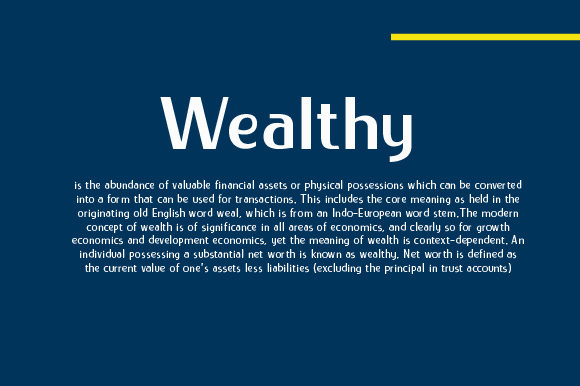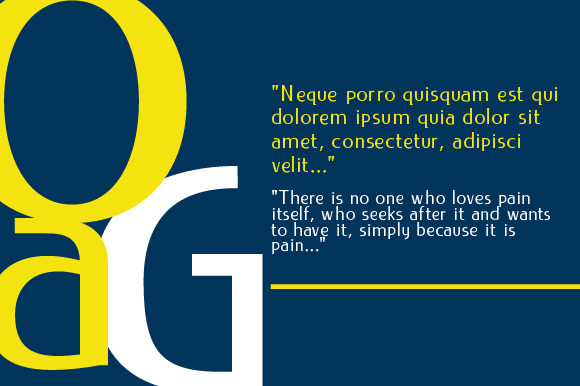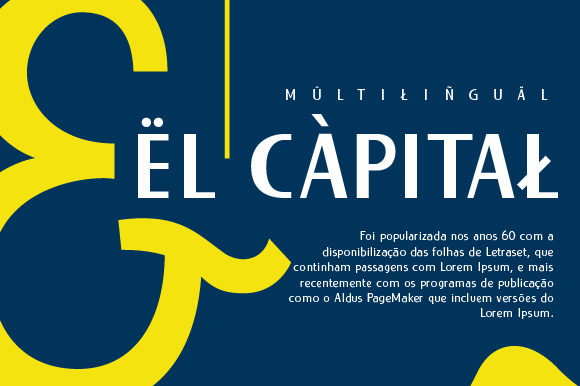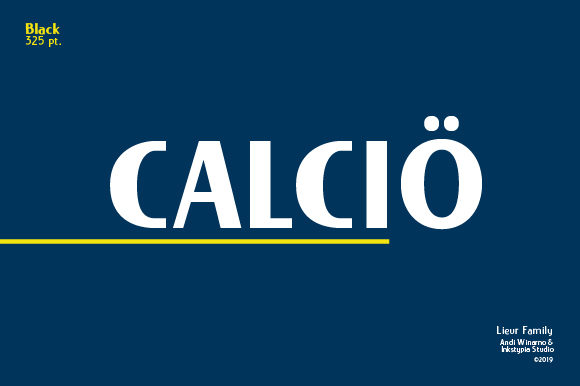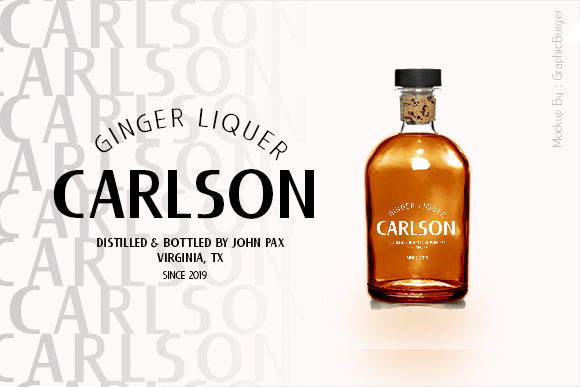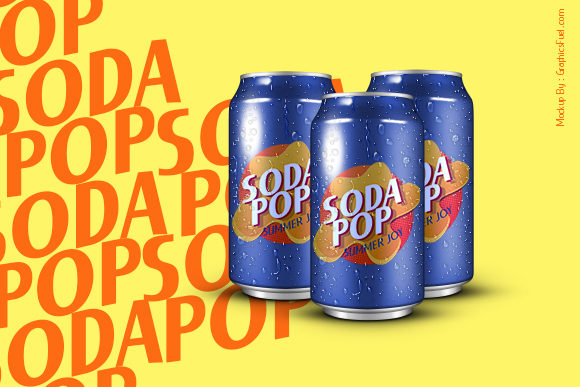
Introduction to Lieur Font
As a designer, there’s nothing quite like the thrill of bringing a creative project to life. The blank canvas stares back at you, full of possibilities and promise. But sometimes, the hardest part is finding the perfect font to tie everything together. This is where Lieur Font comes in – a stunning, minimalist display font family that’s as versatile as it is beautiful.
With its clean, geometric style and transparent background, Lieur Font is the ultimate design resource for any creative project. Whether you’re working on a logo, label design, or just need a high-quality font for body text, Lieur Font is the perfect choice. And the best part? It’s available for free download, making it an invaluable asset for designers on a budget.
Key Features of Lieur Font
- High-quality design resource ideal for creative projects, including logos, graphics, and typography.
- Features a transparent background, making it easy to layer over other design elements and backgrounds.
- Includes multiple font styles and weights, allowing designers to add depth and variety to their creative project.
- High-resolution design, suitable for use in print and digital applications, including signage, posters, and digital graphics.
- Perfect for designers looking for a unique and creative font to elevate their design project, with a high-quality finish and professional look.
Honest Review: Lieur Font
I recently stumbled upon Lieur Font, and I must say it’s been a great addition to my design arsenal. This free download offers a wide range of creative possibilities for my projects.
- High quality typography: Lieur Font is crisp and clear, making it perfect for body text and headings.
- Transparency: The font comes with a transparent background option, allowing for seamless integration into my designs.
- Flexibility: Lieur Font is suitable for a variety of creative projects, from print materials to digital interfaces.
- Limited character set: The font only includes a basic set of characters, which might not be ideal for complex projects.
- No bold/italic variations: While the font is great for body text, it falls short in terms of bold and italic styles.
Overall, I’m impressed with Lieur Font’s potential as a design resource. It’s a solid choice for simple projects, but may require additional fonts for more complex designs.
Tips for Getting the Most Out of Lieur Font
For the best results, use Lieur Font in conjunction with other high-quality design resources. Experiment with different font sizes, colors, and effects to create a unique look for your creative project. You can also use the font in combination with a transparent background for a modern and stylish design.
Lieur Font is a versatile design resource that can be used in a variety of creative projects, such as logos, posters, business cards, and social media graphics. Its transparent background feature makes it ideal for use with images and other design elements.